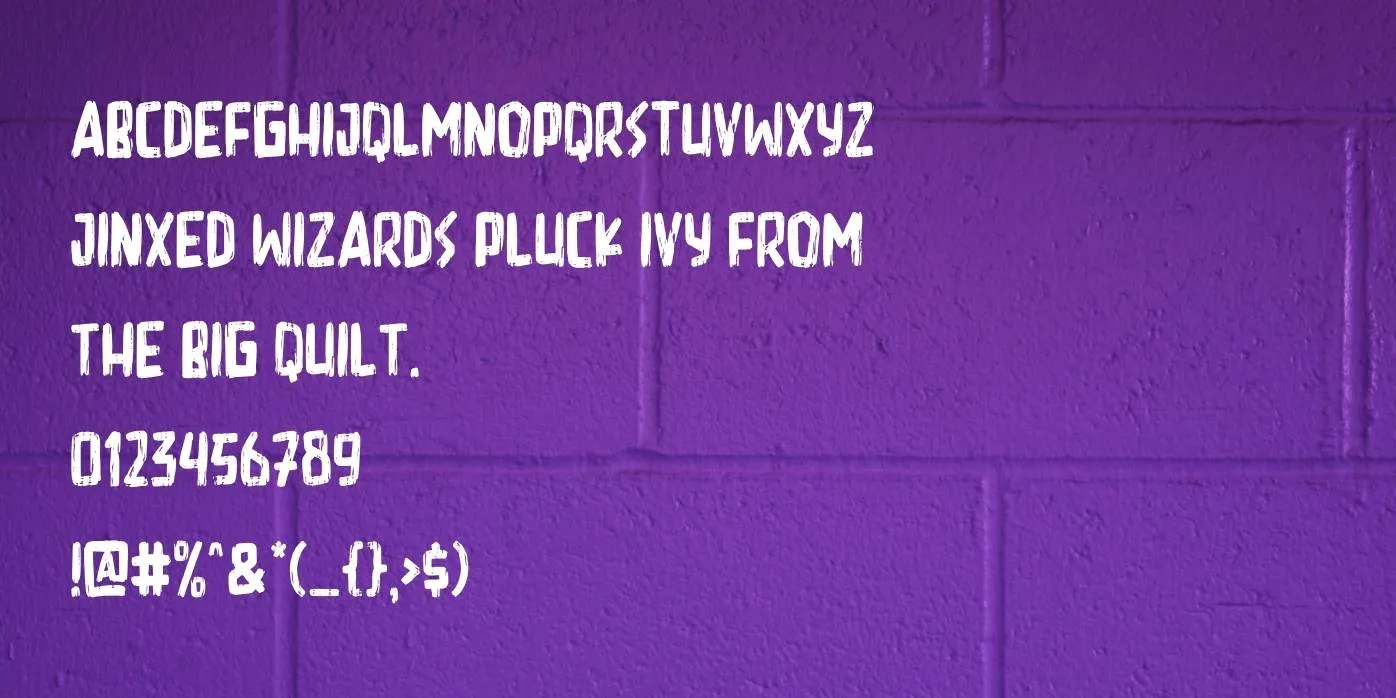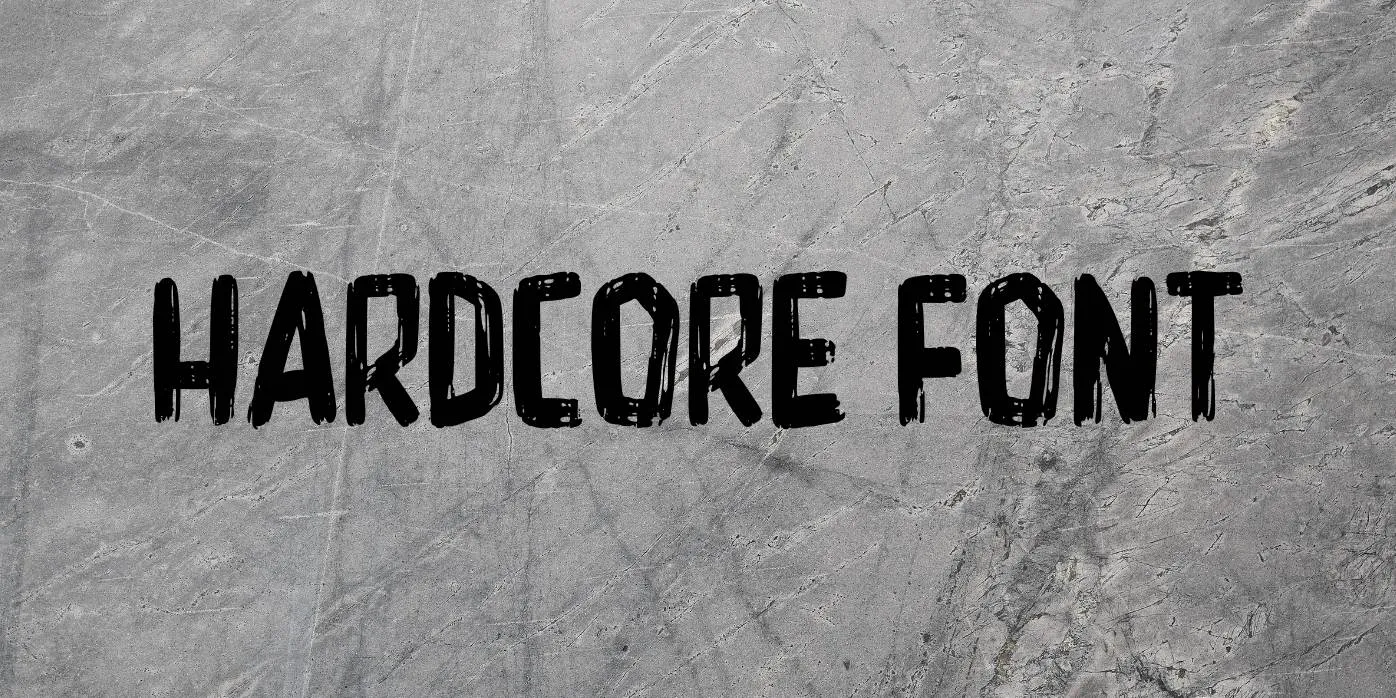
Hardcore Font
Introducing a very particular typeface with brushed style and forceful texture font that is known as Hardcore font. The designer of this pretty special typeface is Garisman Studio and the font family is free for personal use. The characters in this font look made with the concept of a very complex brush. It has the features of a dry brush and is designed to look hardcore.
The font has the ability to support hundreds of languages for international designers. It has special unique glyphs and it has an Opentype layout and Postscript outlines. The font contains certain characters such as Uppercase Letters, Numbers / Numerals, public punctuation, certain glyphs, and selected symbols also.